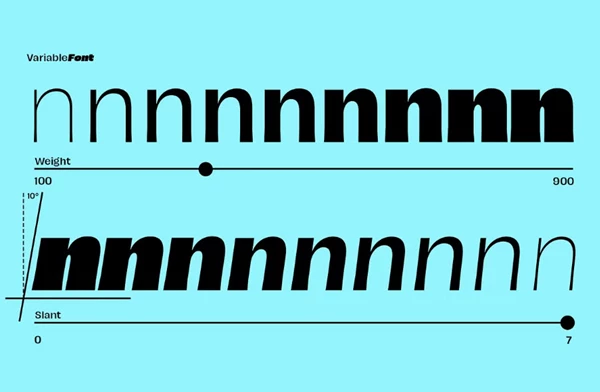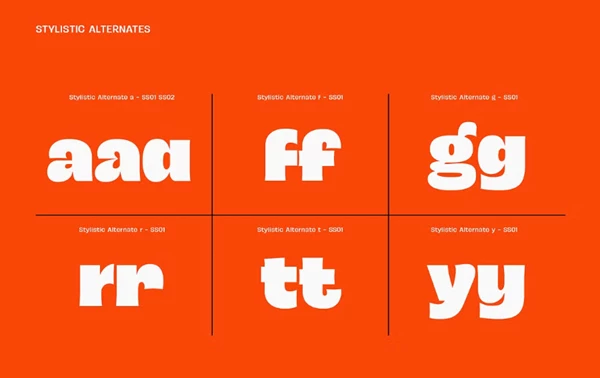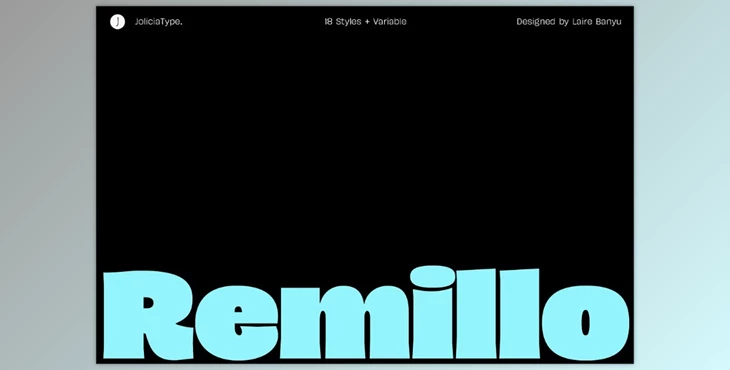
JT Remillo Humanist Sans Serif Font:
JT Remillo is a highly legible humanist sans-serif typeface that gracefully marries organic beauty with readability while seamlessly remaining sophisticated. This versatile typeface family can be purchased as a set with 18 distinct styles and a variable font in both Upright and Italic. The Italic version of the font uniquely slants at a 10-degree angle, which adds life and dynamism to the text.